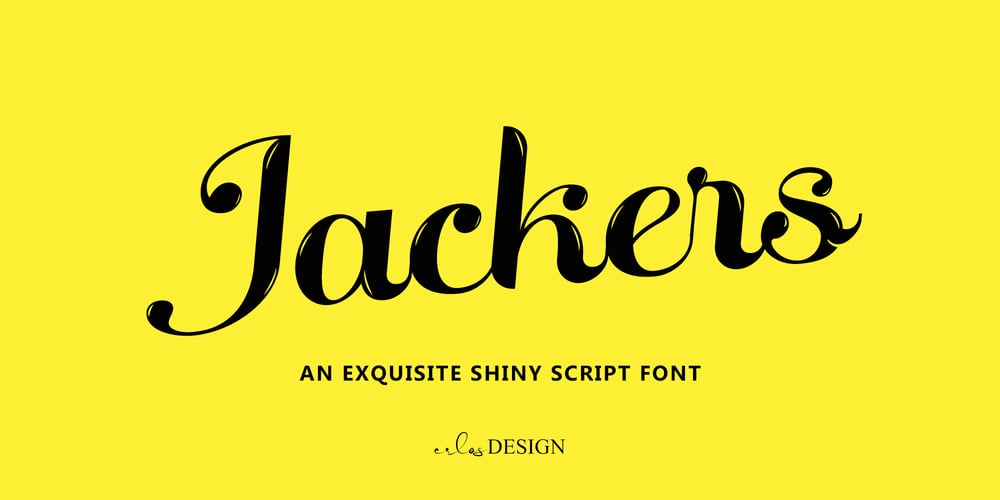
Jackers Font Family was designed by Erlangga Suherman and published by ErlosDesign. Jackers contains 2 styles and family package options. Jackers – An Exquisite Shiny Script Font by erlosDESIGNJackers is an exquisite shiny script font. Whether you are using it for designs, quotes, titles, brand names, book covers, posters, or just any creation that requires a touch of beauty, this font is a great choice.